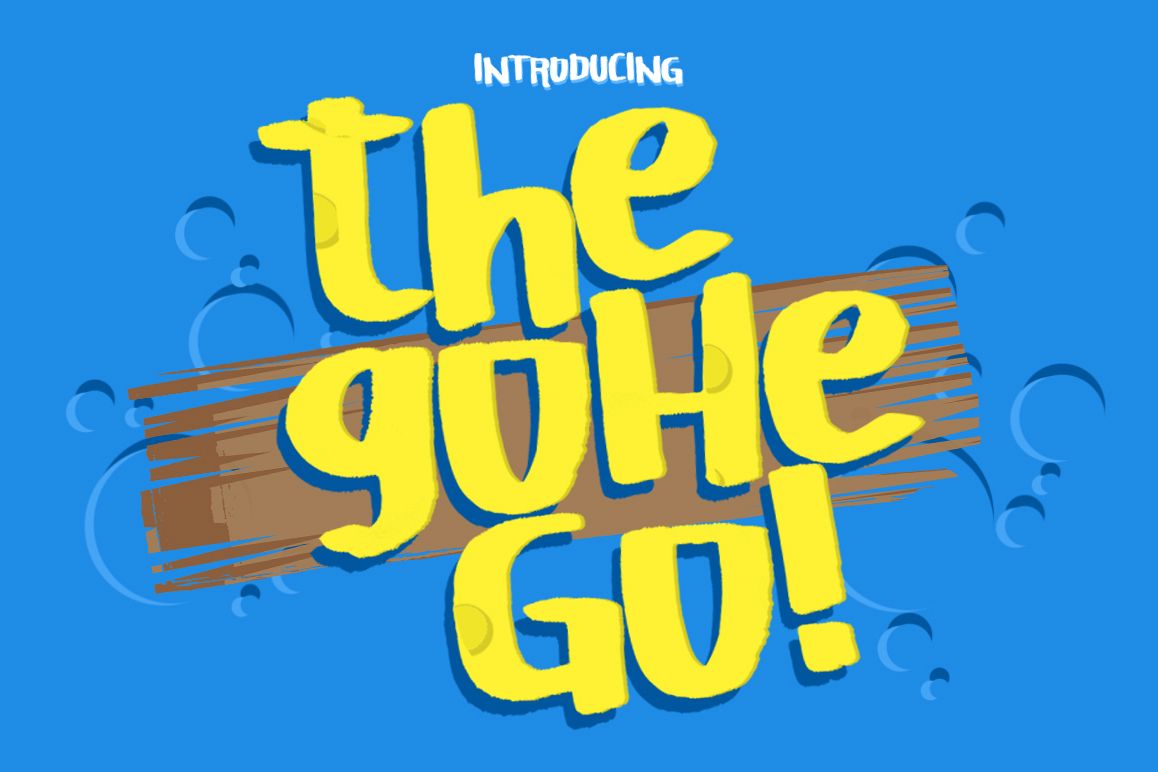
The Gohe Go!
The Gohe Go! is a thick handwritten font that feels like it has been written with a marker.
The font works extremely well on shirts and sweaters or on signs. The font is clear and robust and will make any text stand out.
Also it can be used for many other applications, such as decorating and personalizing cups, signs or even wedding invites and birthday cards.
This font is multi language font.